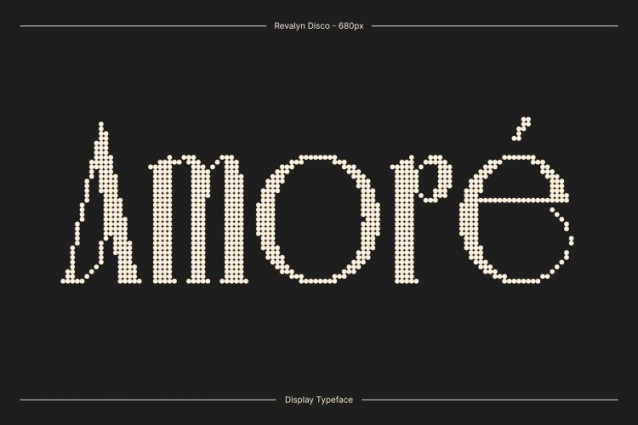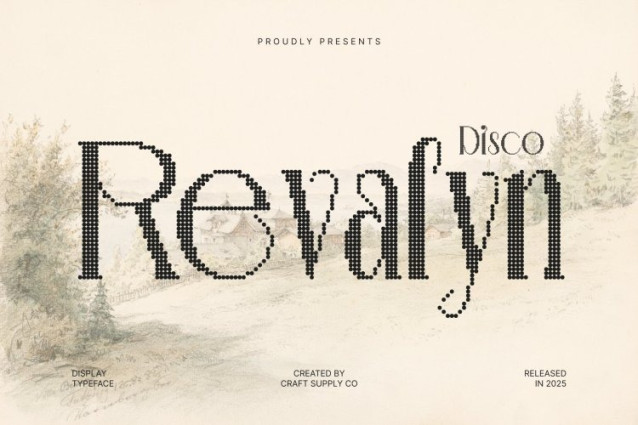
Revalyn Disco Font
Revalyn Disco Font This is a modern serif font that beautifully merges the organic curves of Art Nouveau design with clean, contemporary lines. Each character exudes elegance and sophistication, creating a typeface that feels both trendy and timeless. Its harmonious balance of decorative detail and modern simplicity, perfect for designers seeking a stylish and captivating aesthetic.
Clean Lines for Trendy and Refined Designs
The sleek, structured shapes of ensure clarity and visual appeal. Its contemporary line work enhances readability while maintaining the graceful, flowing influence of Art Nouveau. This combination results in a versatile font that works beautifully in both display and editorial settings, offering a polished and sophisticated presence.
Disco Effect for Glamour and Dynamic Energy
The integrated disco effect adds sparkle and subtle movement to every letter, infusing the typeface with vibrant energy and glamour. This dynamic touch transforms your text into a lively, eye-catching feature, making it perfect for designs that demand attention and a luxurious, playful flair.
Perfect for Branding, Posters, Editorials, and Creative Projects
This font excels in branding, posters, editorials, creative projects, invitations, and high-end design applications. Whether designing glamorous logos, sophisticated headlines, or visually striking promotional layouts, this font delivers elegance, style, and dynamic character.